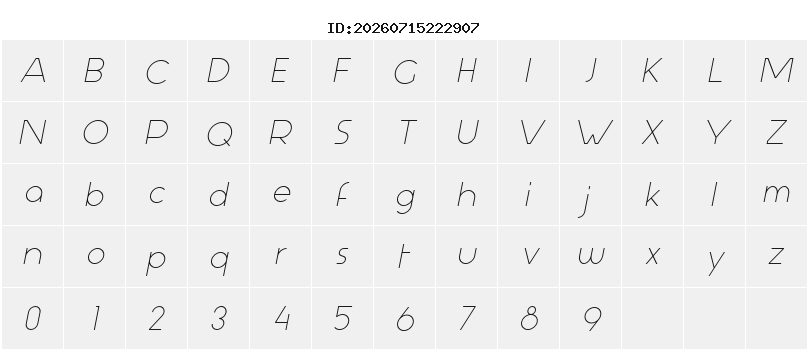
Aspergit Preview
• Font Name: Aspergit
• Font ID: PauloR: Aspergit Italic: 2013
• Full Font Name: Aspergit Italic
• Version: Version 1.001 2013
• PostScript Name: AspergitItalic
• Character Count: 196
• Designer: Paulo R
• Manufacturer: Paulo R
About Aspergit.otf
Aspergit.otf is a modern, elegant sans-serif font designed for ultimate readability and visual harmony. Perfect for branding, headlines, web design, and print materials.